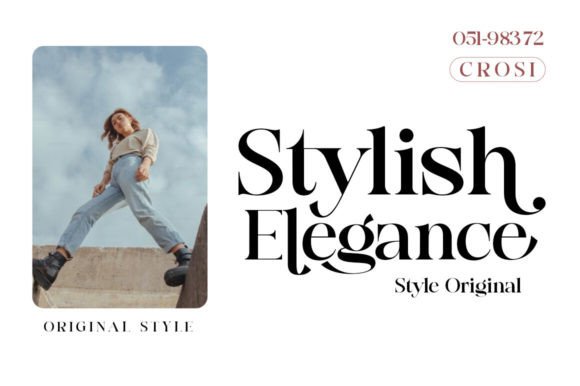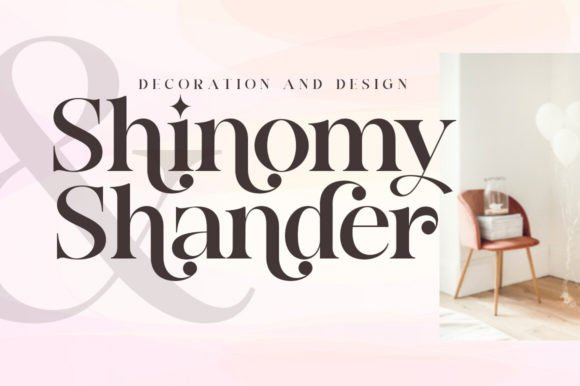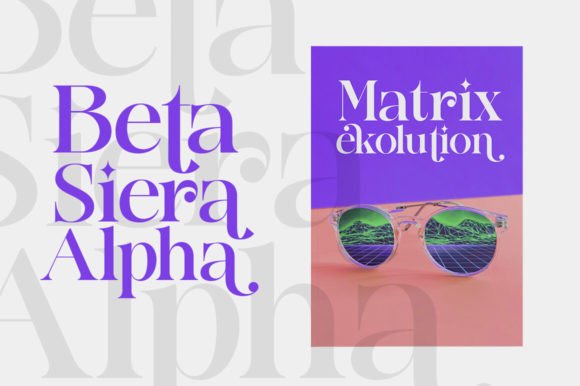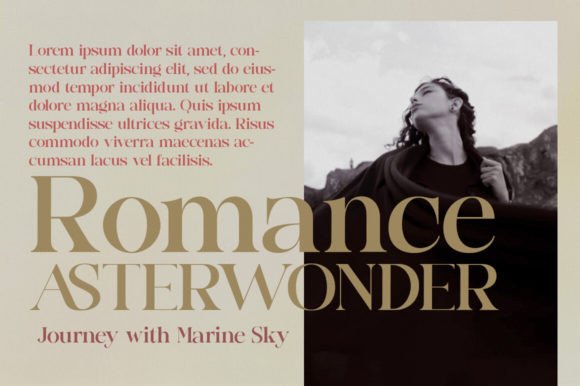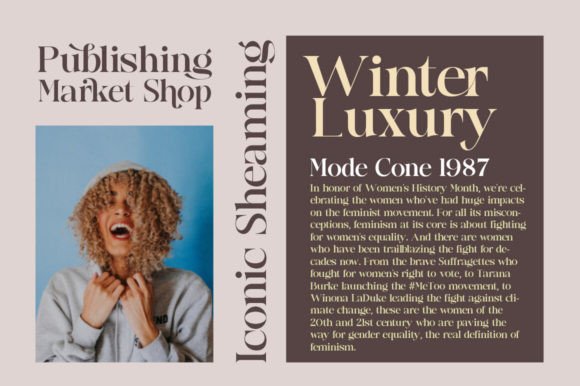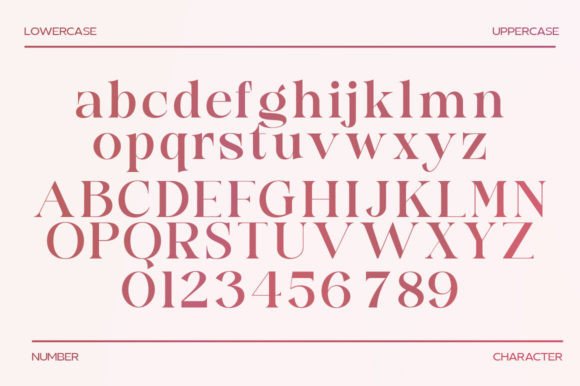
Introducing Coaster Simone Font: Elevate Your Designs with Bold and Assertive Typography
In the world of typography, a font can make or break a design. It’s the foundation upon which the entire visual identity is built. For designers and crafters, having the right font in their arsenal can be a game-changer. That’s where Coaster Simone Font comes in – a bold and assertive serif font that’s poised to revolutionize your font library.
The Power of Coaster Simone Font
Coaster Simone Font is not just another font; it’s a statement piece. Its bold and assertive personality makes it perfect for a wide range of design projects, from branding and advertising to packaging and editorial design. This font is designed to grab attention, convey confidence, and leave a lasting impression.
One of the standout features of Coaster Simone Font is its versatility. Whether you’re working on a serious and professional project or something more playful and creative, this font adapts seamlessly. Its serif design adds a touch of sophistication and elegance, making it suitable for high-end brands, luxury products, and refined publications.
Why Coaster Simone Font Stands Out
So, what sets Coaster Simone Font apart from other fonts in its category? Here are a few reasons why it’s an incredible asset to your font library:
- Bold and Assertive: Coaster Simone Font is designed to make a statement. Its bold and assertive personality ensures that your message is heard loud and clear.
- Versatile: This font is incredibly versatile, making it suitable for a wide range of design projects and applications.
- Elegant Serif Design: The serif design of Coaster Simone Font adds a touch of sophistication and elegance, making it perfect for high-end brands and refined publications.
- Easy to Read: Despite its bold personality, Coaster Simone Font remains easy to read, even at smaller sizes.
How to Use Coaster Simone Font in Your Designs
Coaster Simone Font is incredibly easy to use and can be applied to a variety of design projects. Here are a few ideas to get you started:
- Branding and Logo Design: Use Coaster Simone Font to create a bold and memorable logo that makes a statement.
- Advertising and Marketing Materials: This font is perfect for headlines, titles, and other attention-grabbing elements in your advertising and marketing materials.
- Packaging Design: Coaster Simone Font can add a touch of sophistication and elegance to your packaging design, making your product stand out on store shelves.
- Editorial Design: Use this font for article titles, headings, and other typographic elements in your editorial designs.
Tips for Pairing Coaster Simone Font with Other Fonts
While Coaster Simone Font is stunning on its own, it can also be paired with other fonts to create a unique and harmonious typographic combination. Here are a few tips for pairing Coaster Simone Font with other fonts:
- Pair with a Sans-Serif Font: Pairing Coaster Simone Font with a sans-serif font can create a nice contrast and add visual interest to your design.
- Use a Script Font: Combining Coaster Simone Font with a script font can add a touch of elegance and sophistication to your design.
- Experiment with Font Sizes: Don’t be afraid to experiment with different font sizes to create a visually appealing hierarchy in your design.